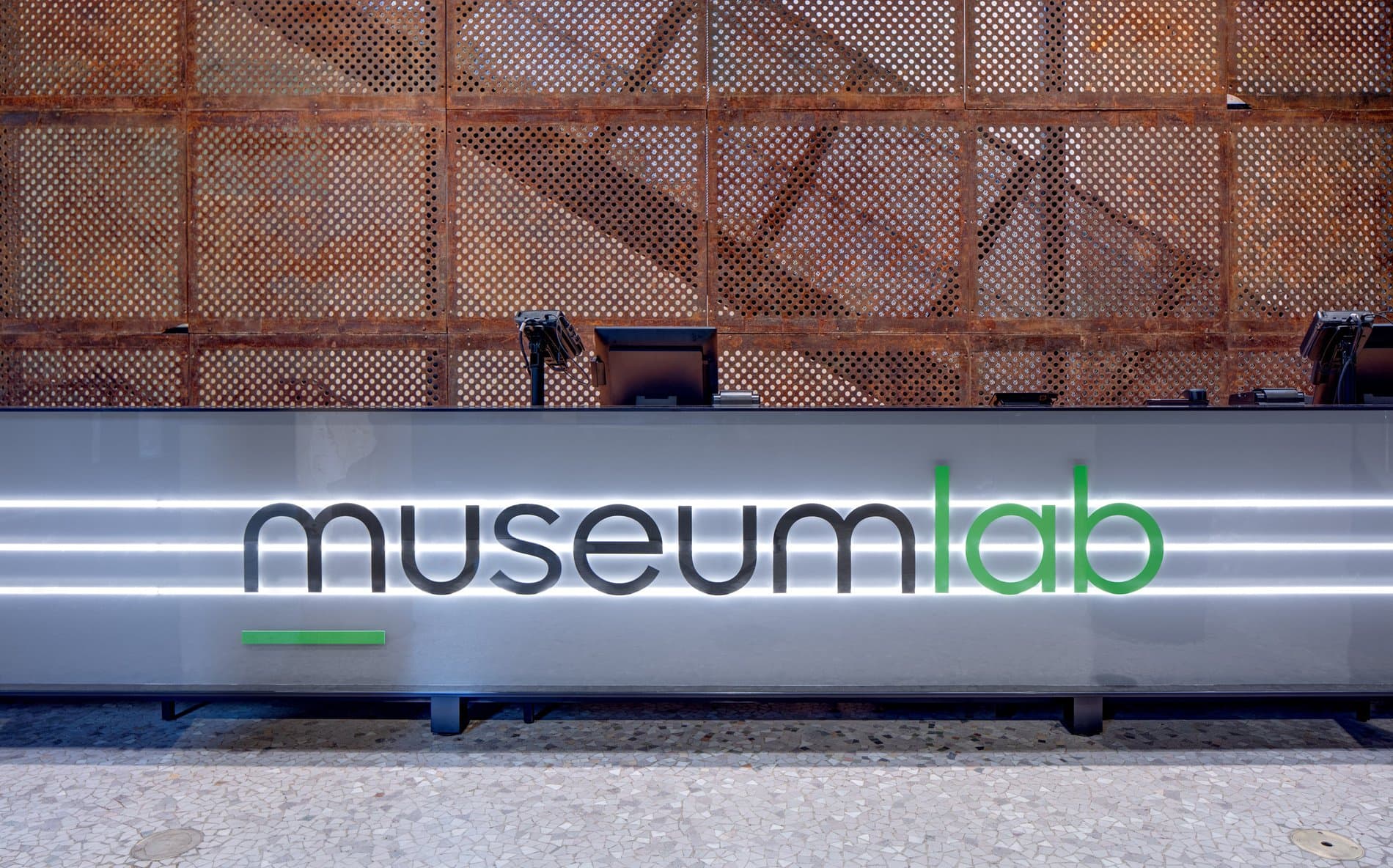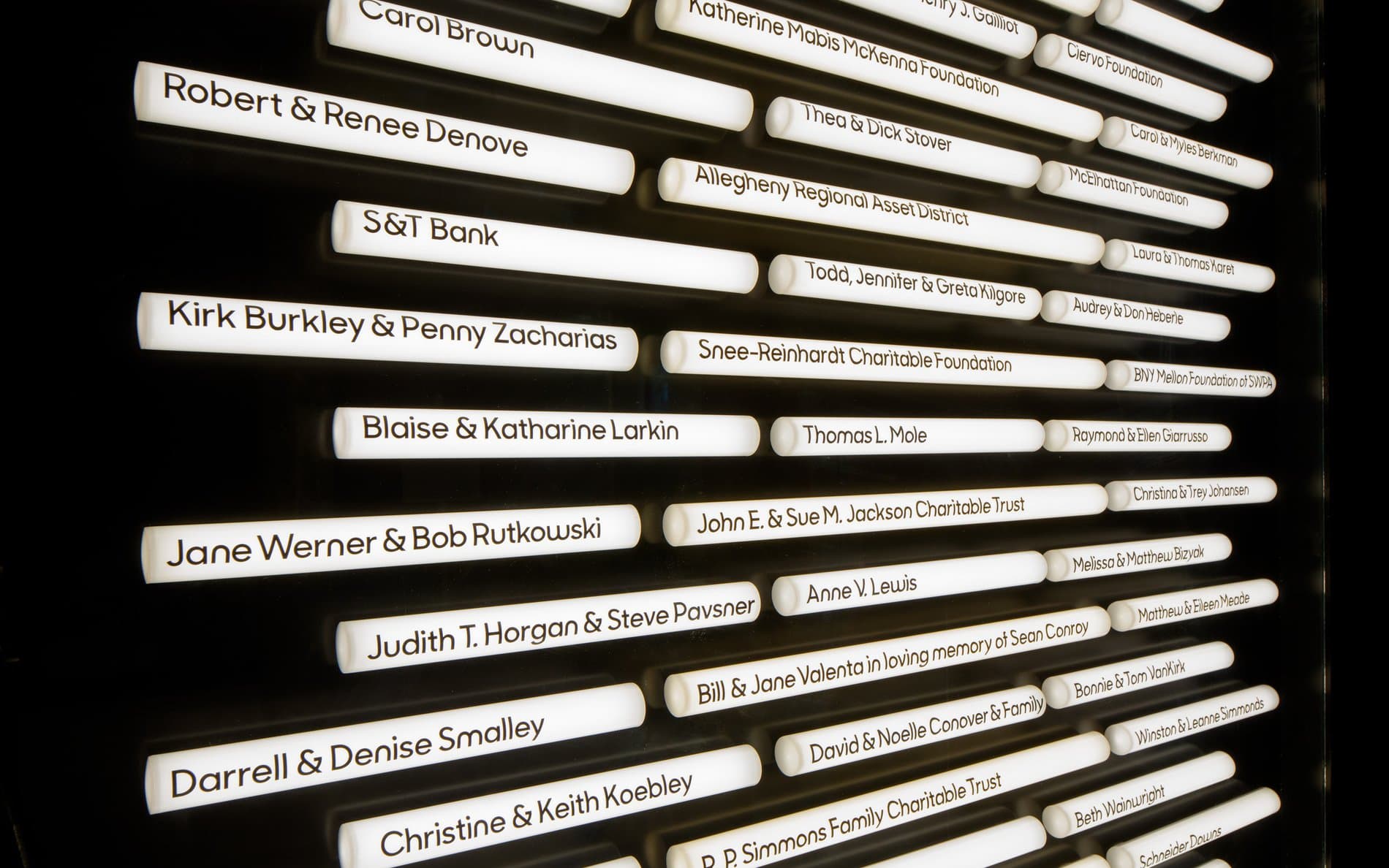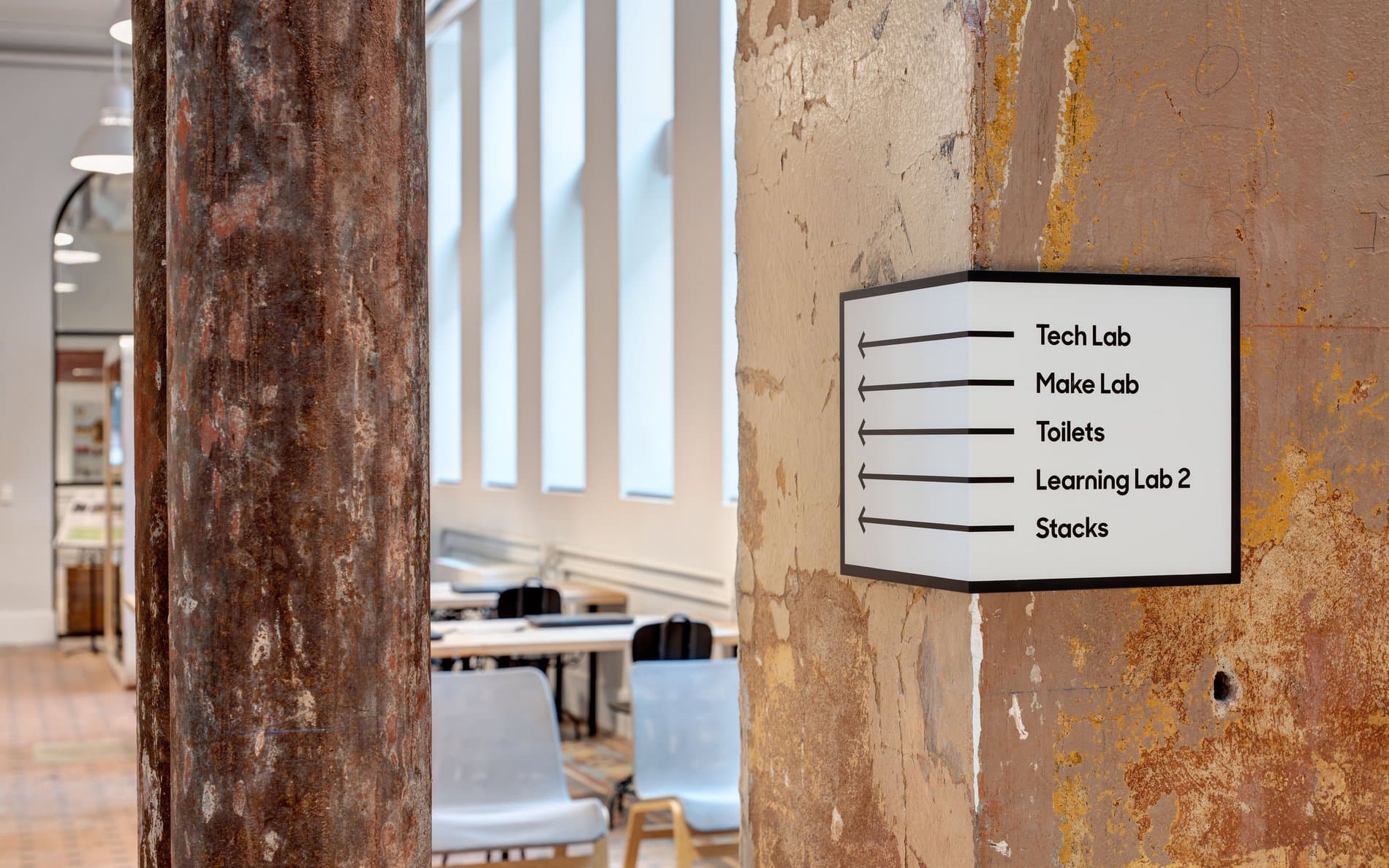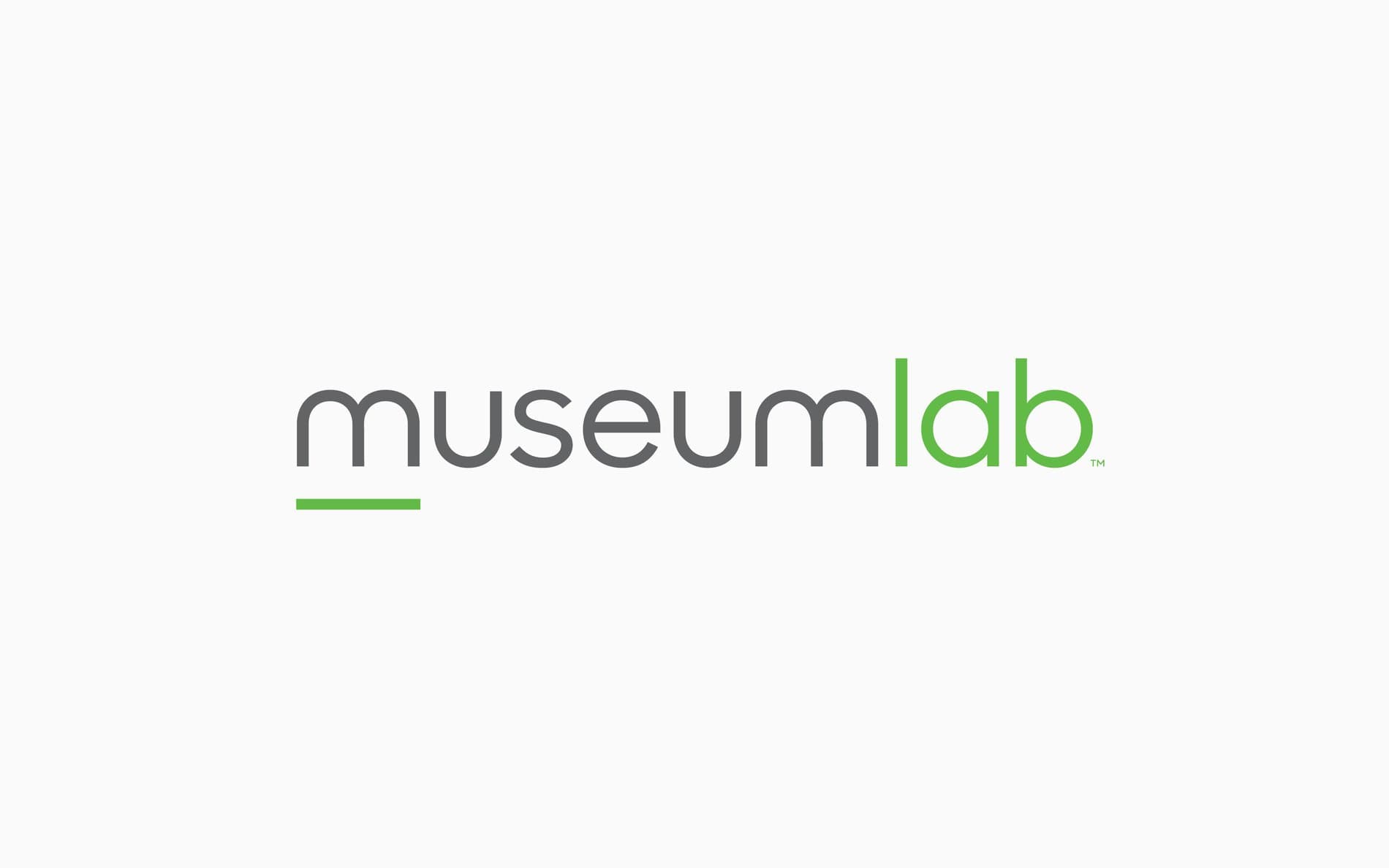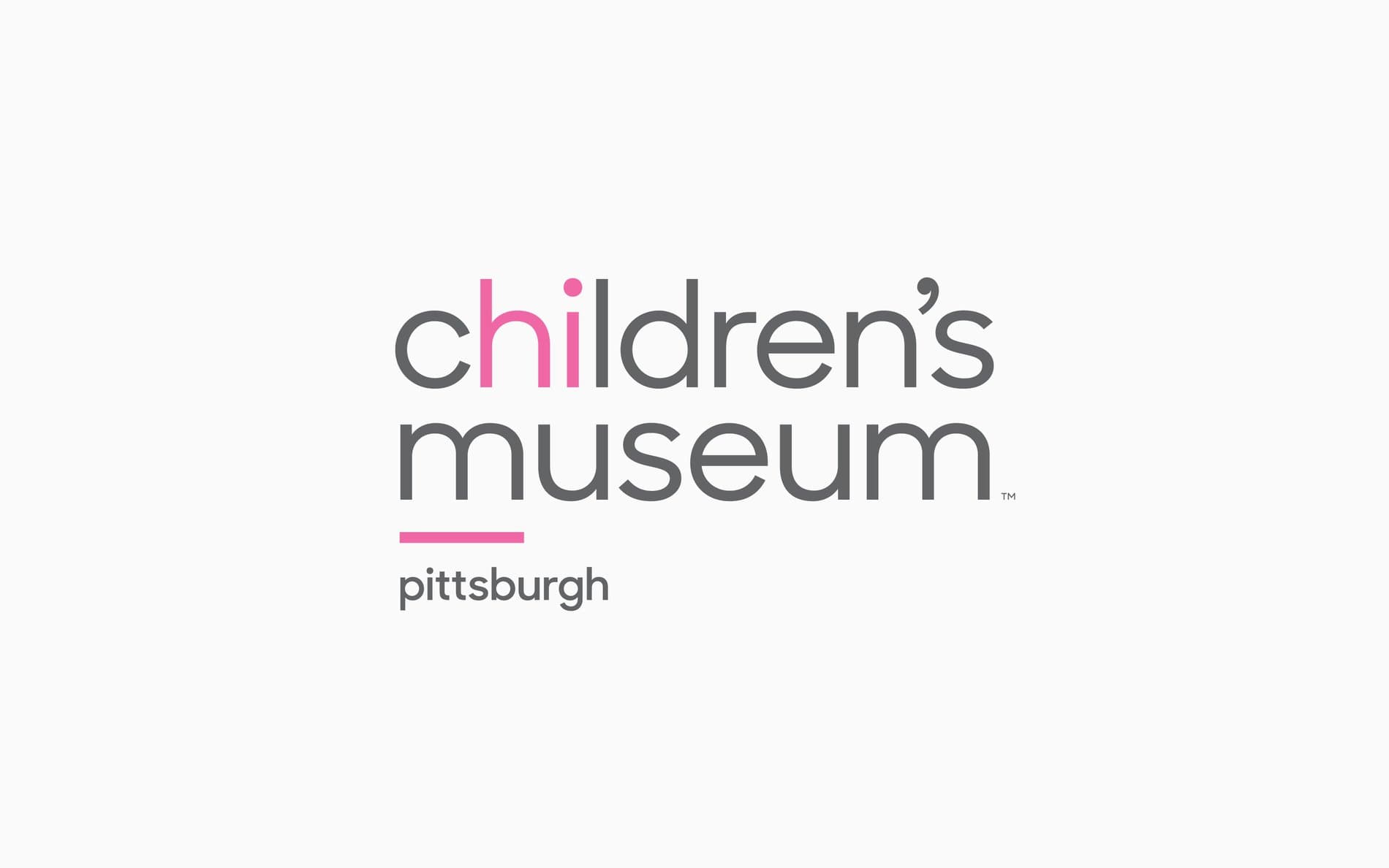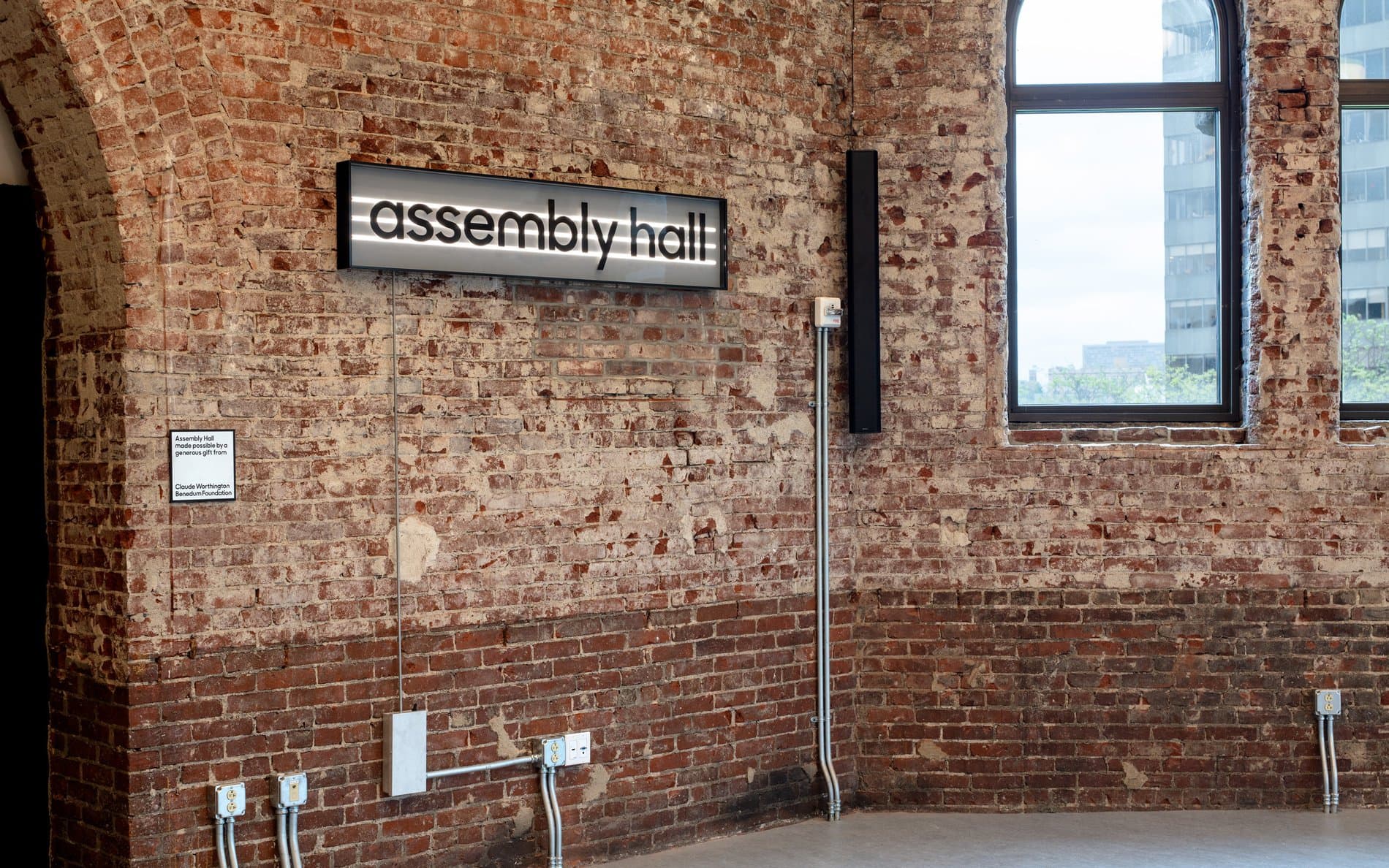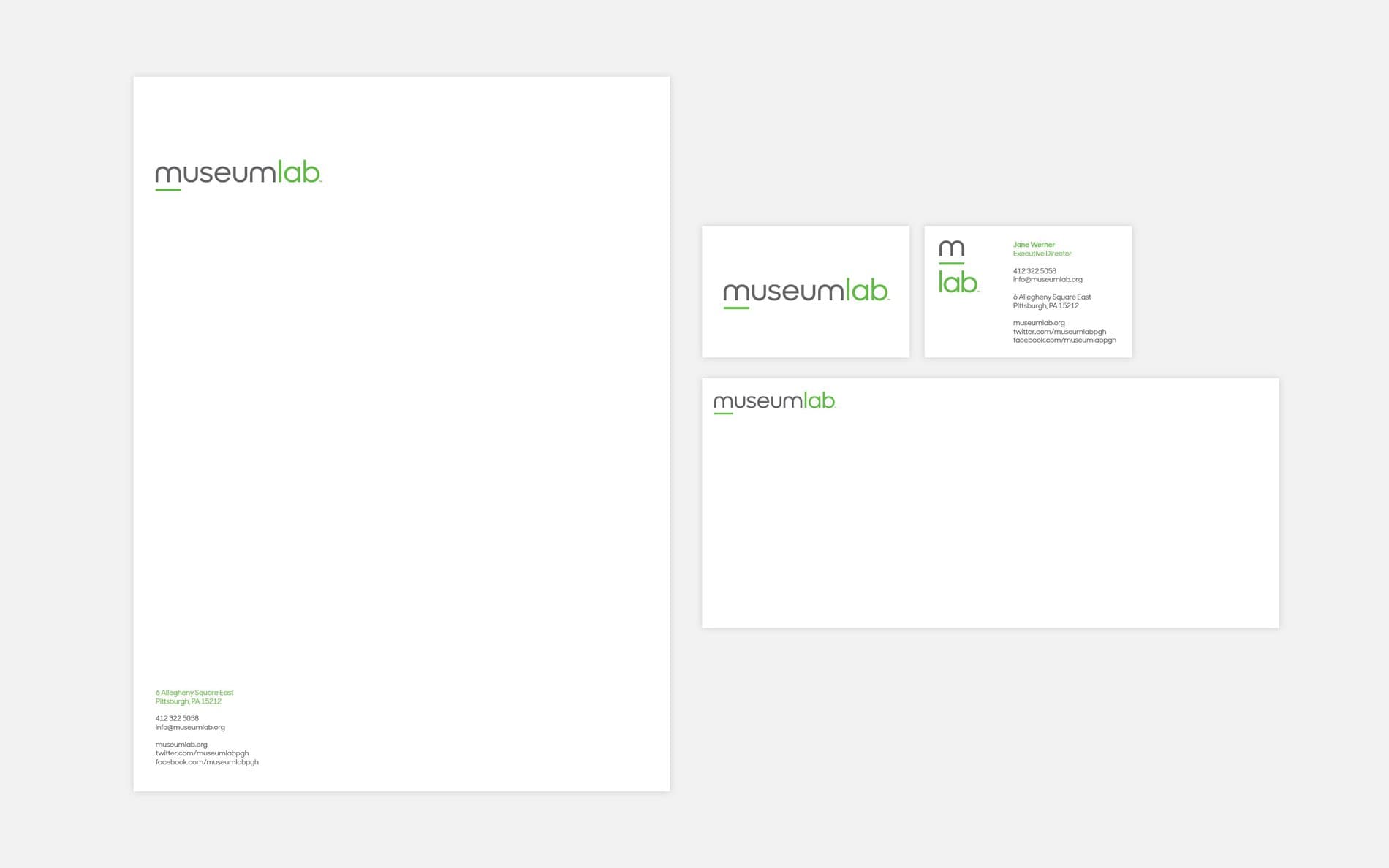
The Children's Museum of Pittsburgh is an interactive learning institution to garner interest in tech, for children of any age. With an emphasis on hands-on learning, CMoP just launched Museum Lab, where children 10+ "can work with makers to create everything from furniture to apps, experiment with cutting edge technology in the creation of art."
For this expansion, the museum hired Paula Scher and her team at Pentagram to execute a brand refresh of the main museum, as well as develop branding for their new "lab" branch. Team leaders were Rory Sims and Jaenam Yoo, who used Sharp Sans Display No.1 as the primary typeface for all of the brand identity, and on-site signage and wayfinding. To differentiate between the museum and lab, Paula and her team used the lowercase bayer alternates for the logo and branding of the lab faction.
Typeface: Sharp Sans Display No.1